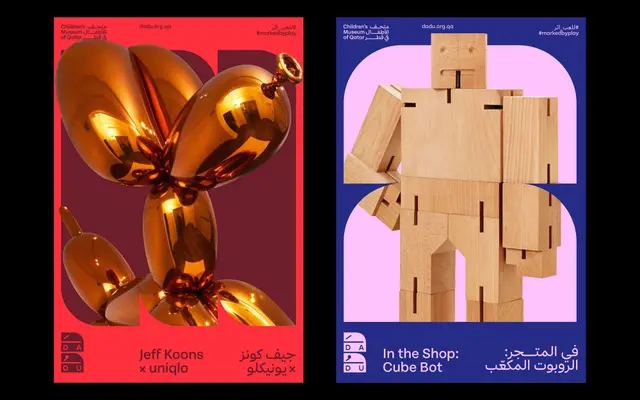
Tenon
Signal · Seán Mongey, Max Phillips
A sans-serif derived by stripping the serifs from Signal's slab family Mortise, sitting between grotesque and geometric with nearly circular bowls and wide, open proportions.
Born from Mortise, Signal's slab serif, by removing the serifs to reveal a plain, efficient structure that occupies the territory between grotesque and geometric. Wide proportions, open counters and a generous x-height make it practical at small sizes on screen, while at larger settings the brisk, upright character suits editorial and signage work. Six weights from X-Light to X-Bold each carry matching italics, giving twelve styles in total.
Derived from the slab serif Mortise by removing the serifs, the result sits between a grotesque and a geometric sans with nearly circular bowls, placing it in a hybrid subcategory rather than squarely in either tradition.